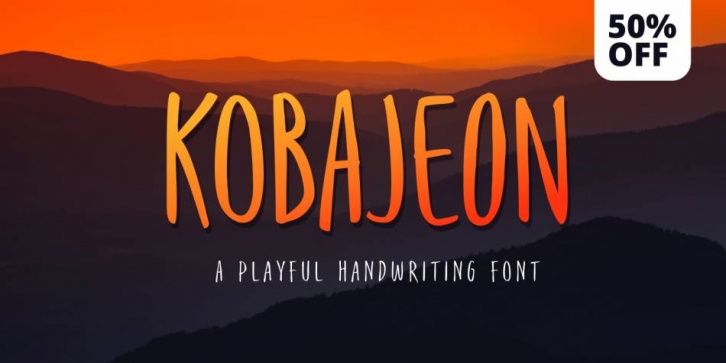
Designed by Dexsar Anugrah, Kobajeon is a brush display and hand display font family published by Majestype.
Kobajeon is a fun handwritten font with a touch of Japanese style. This font is suitable for both display and title.
Equipped with 200+ Glyphs that will give the impression of a good handwriting style.
It is perfect for product packaging, cartoon, magazine covers, social media, wedding, or just used to express words above the background.